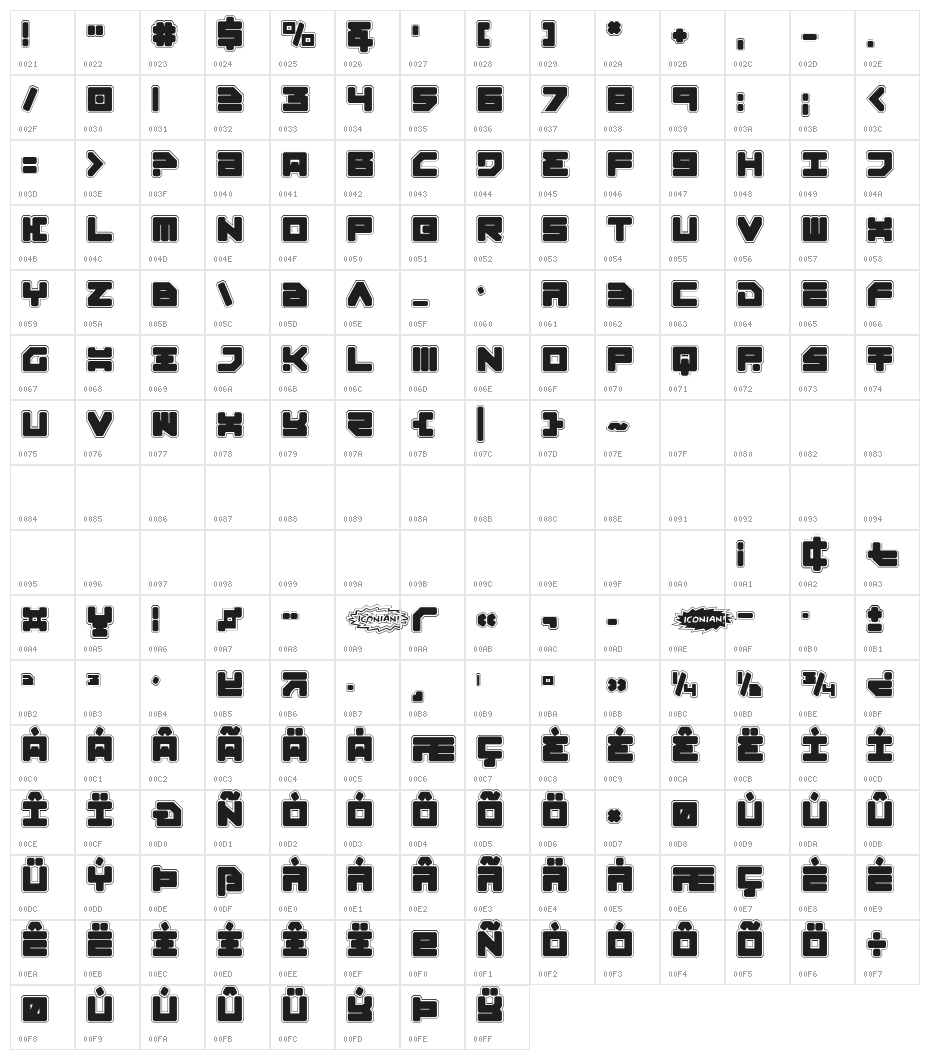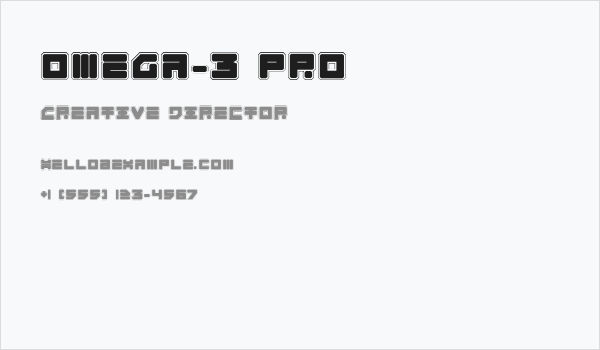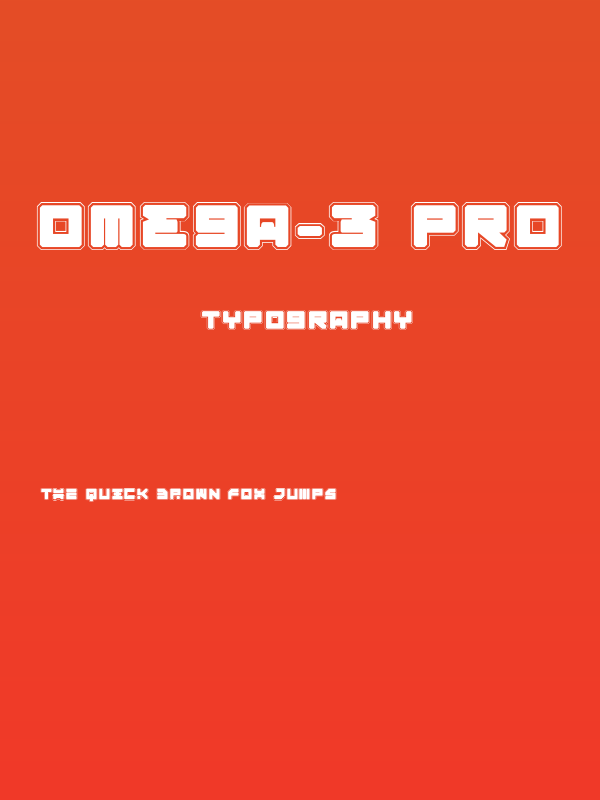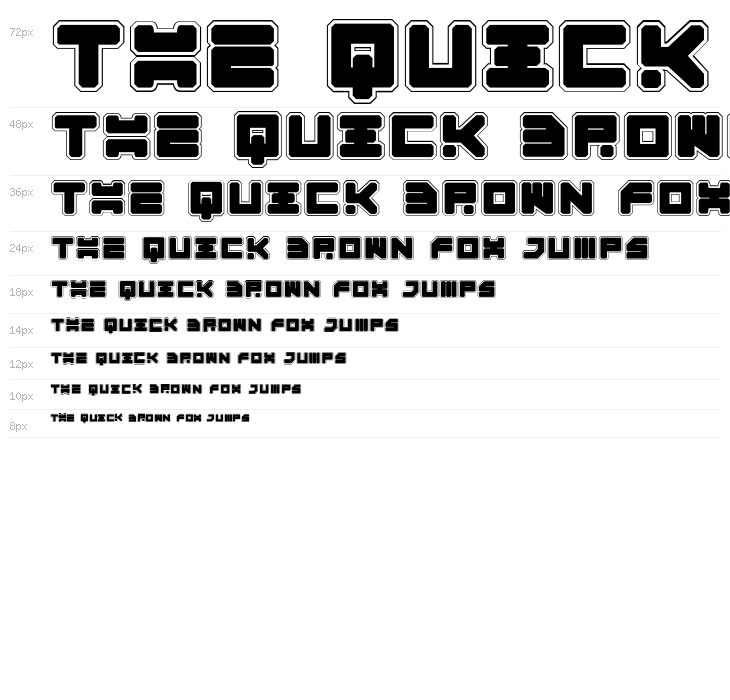
Omega-3 Pro Font
Omega-3 Pro Description
This font features a bold, futuristic design with a strong geometric influence. The characters are enclosed in a thick outline, giving them a three-dimensional appearance. The uppercase and lowercase letters share a consistent style, with angular cuts and a blocky structure. The numbers and special characters maintain this cohesive look, making the font suitable for digital and tech-themed projects. Its unique style is eye-catching and modern, ideal for making a statement.
| Overall Style | Futuristic |
| Proposed Projects | Ideal for tech-themed designs, video game graphics, digital posters, and futuristic branding. |